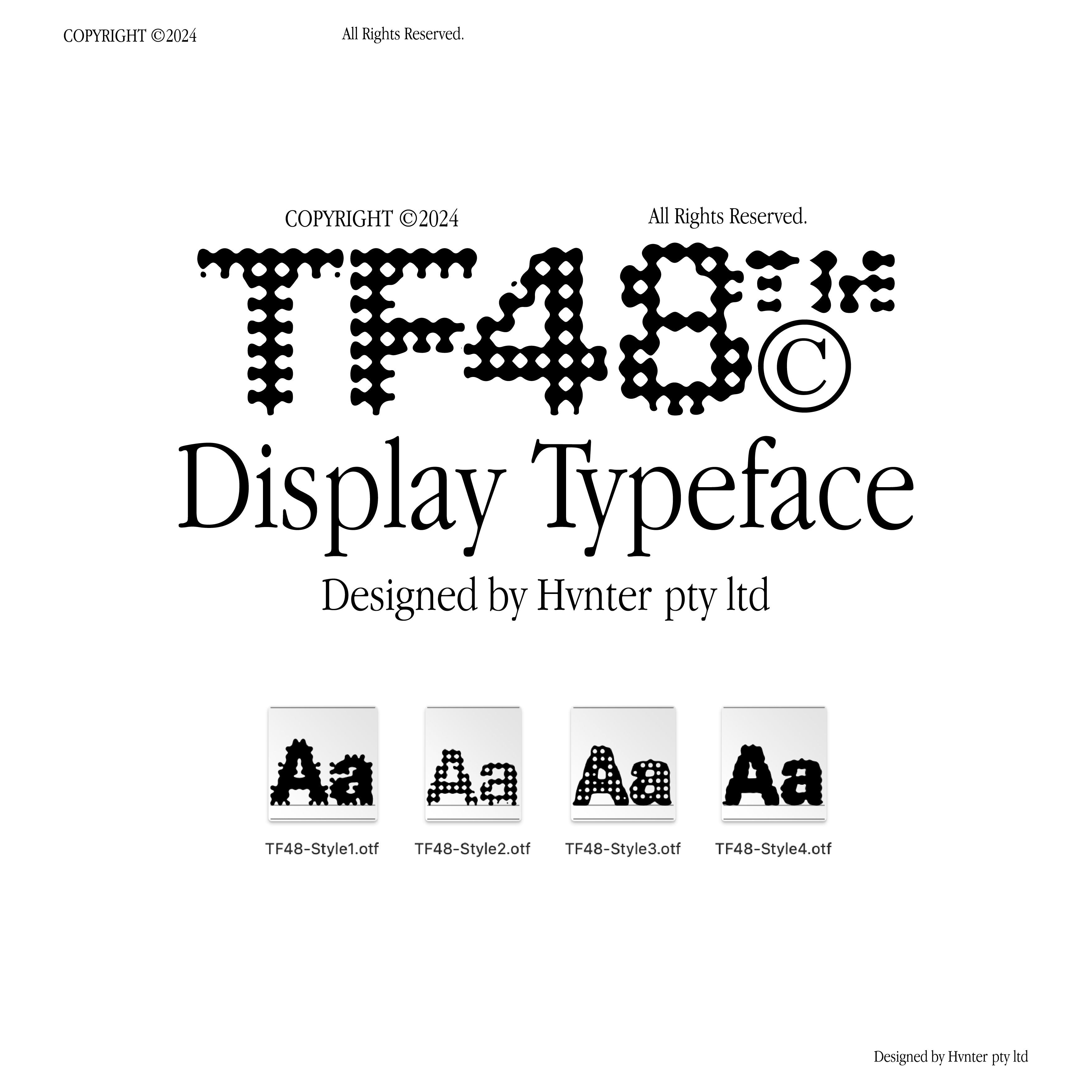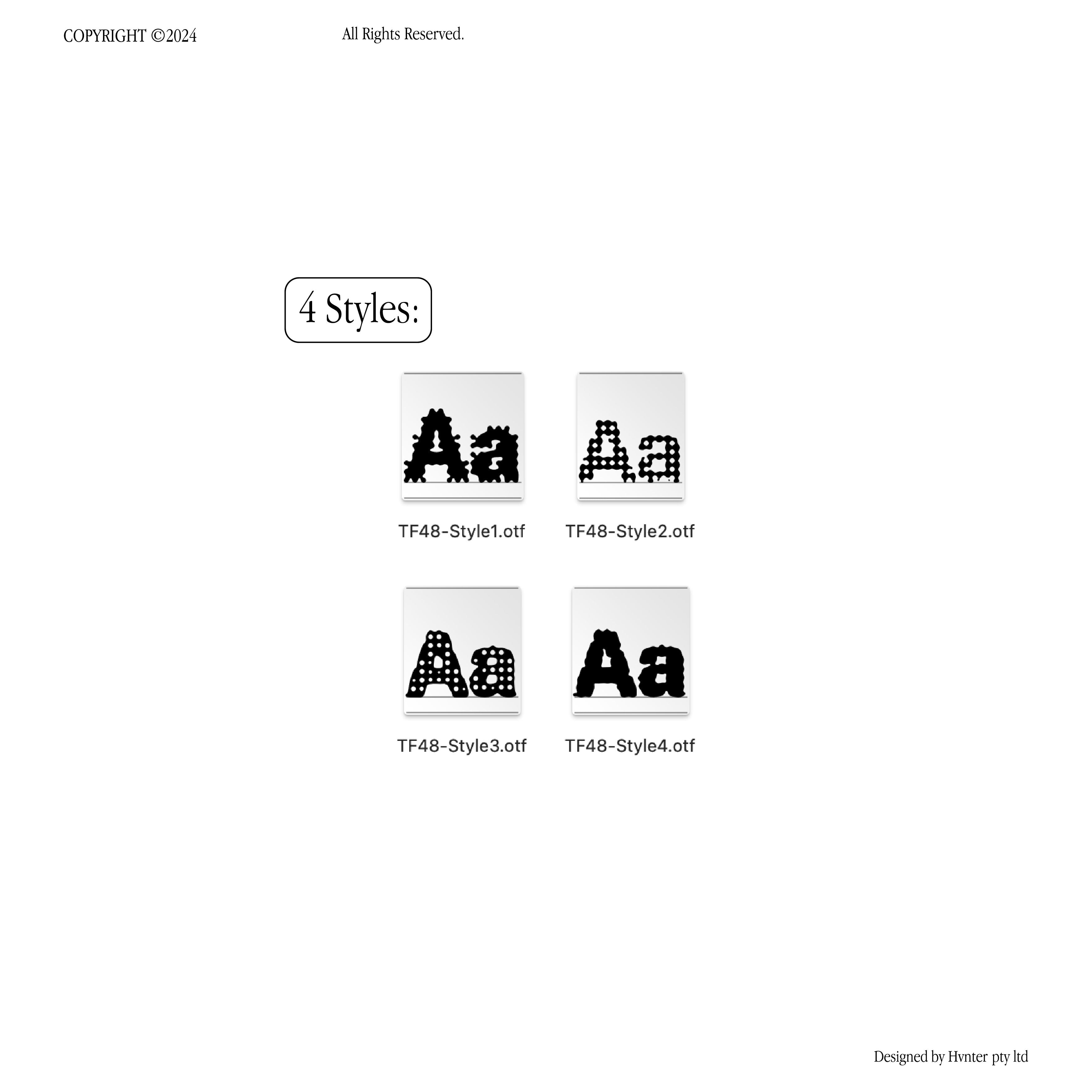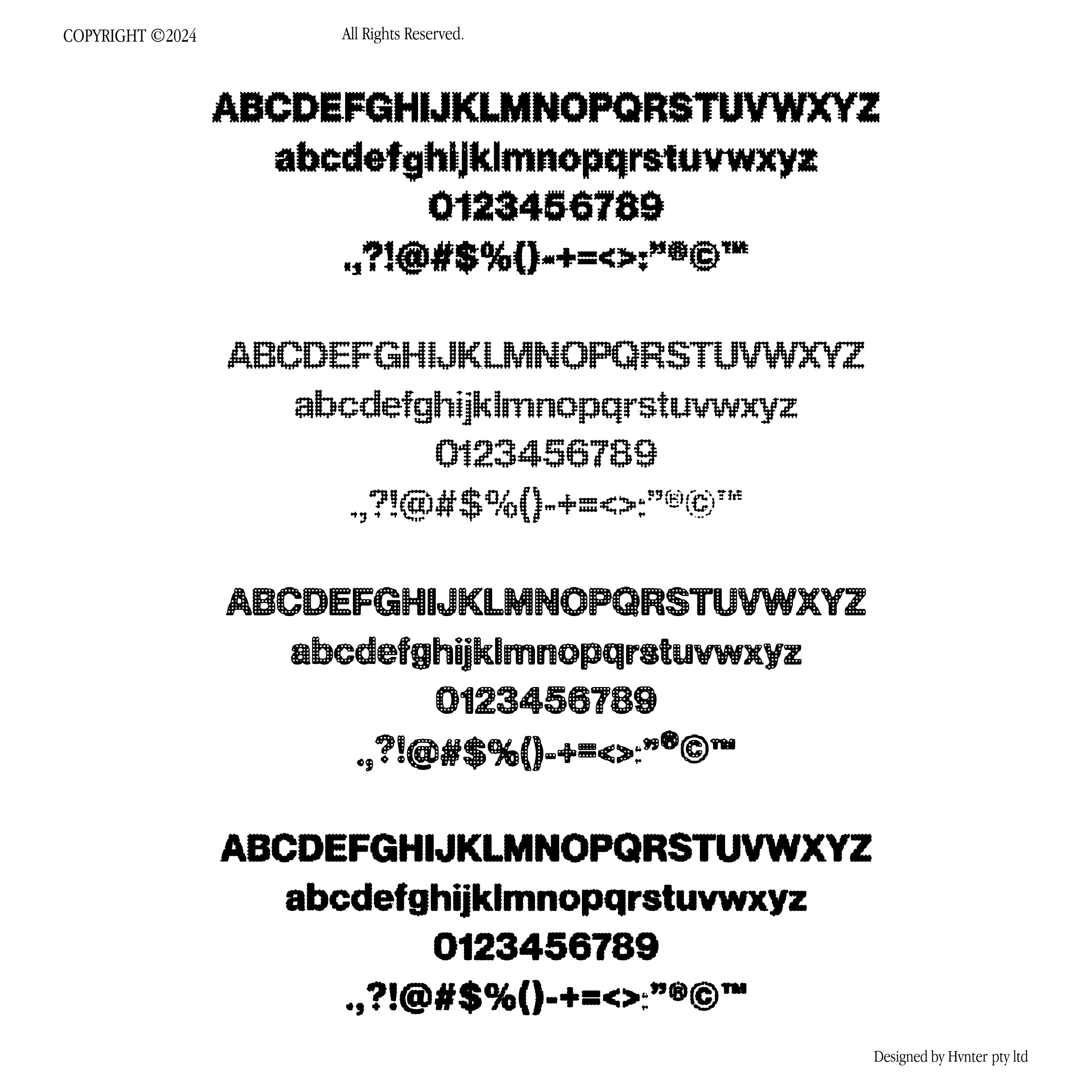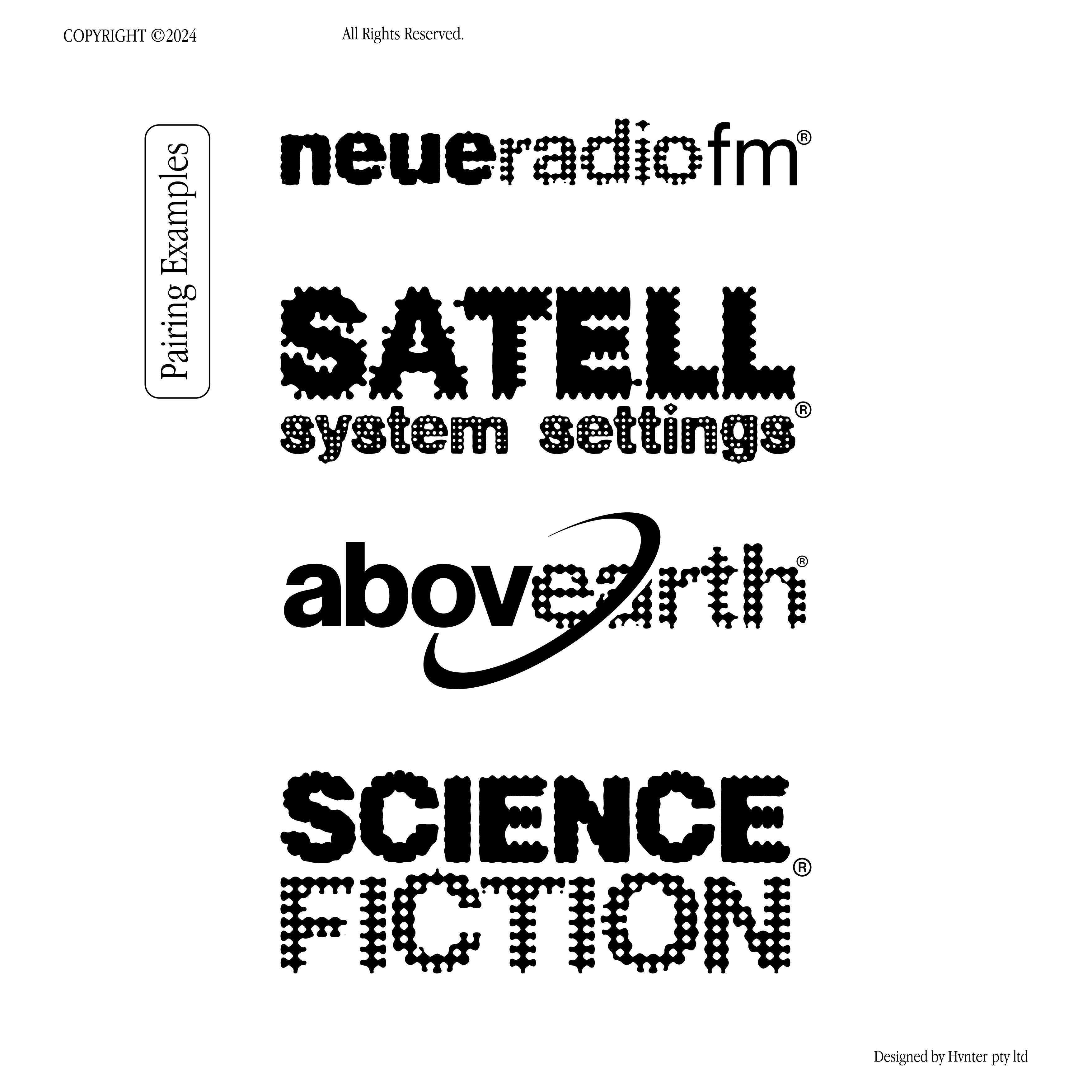
TF48 Typeface
Selection of 4 font styles imitating a digital LCD screen effect.
Each font style includes:
A-Z, a-z, 0-9 + symbols
The TF48 Typeface is a collection of four font styles that replicate a digital LCD screen effect. It includes a full set of characters (A-Z, a-z, 0-9) and symbols, and is tagged under categories such as pixel, grunge, streetwear, cyberpunk, display, Y2K, retro, and bold fonts. Compatibility details are not specified.